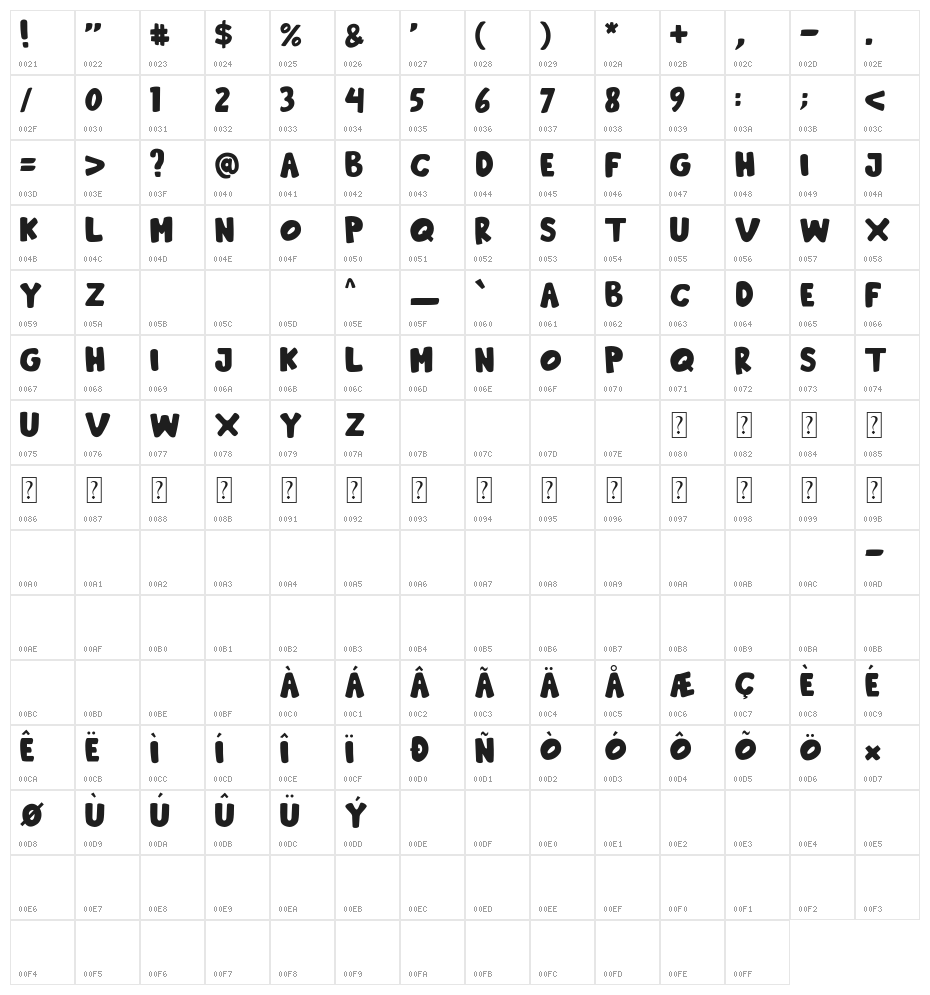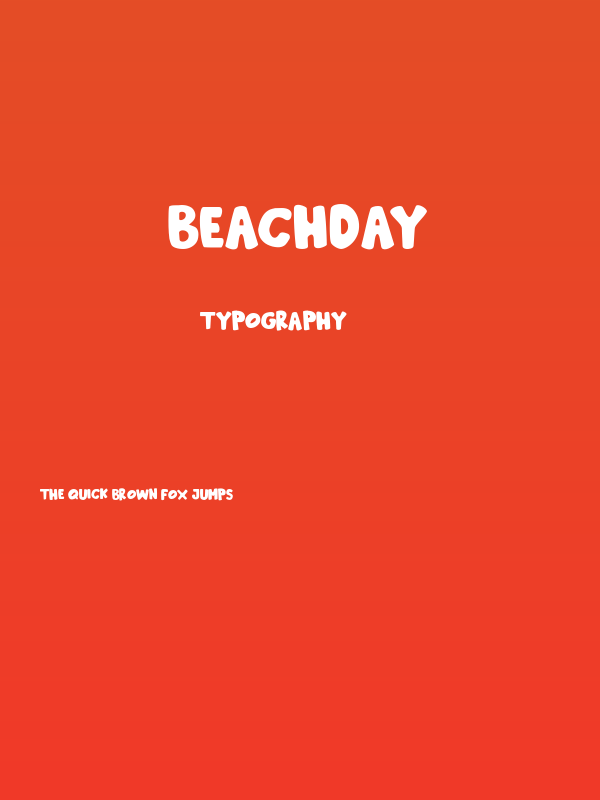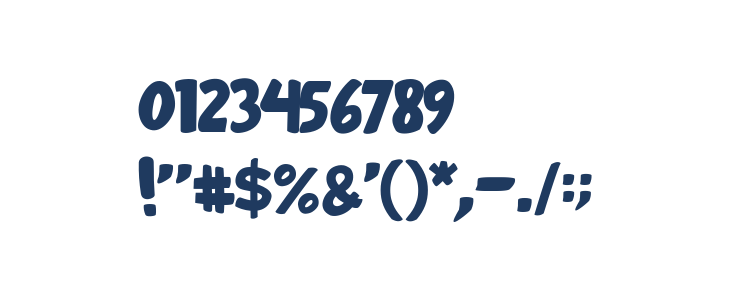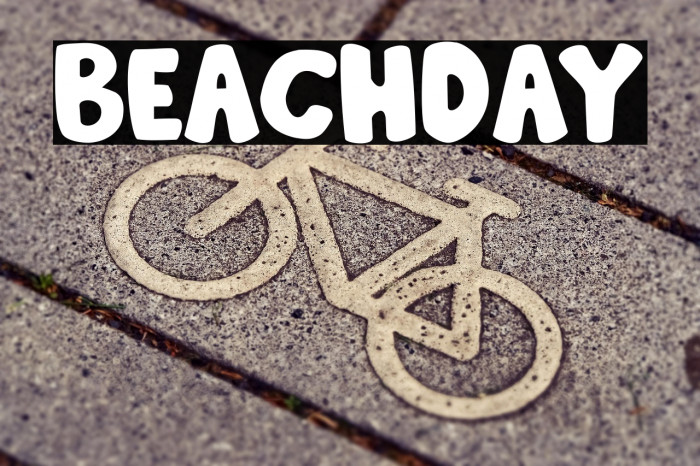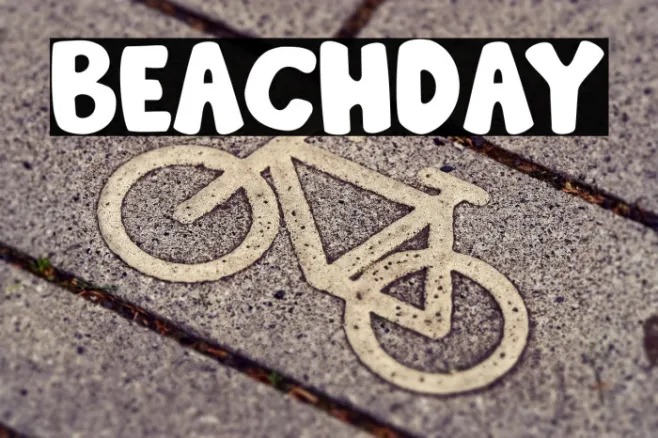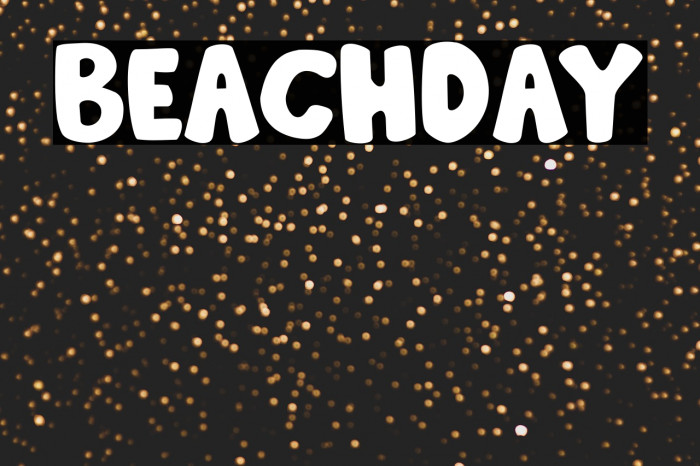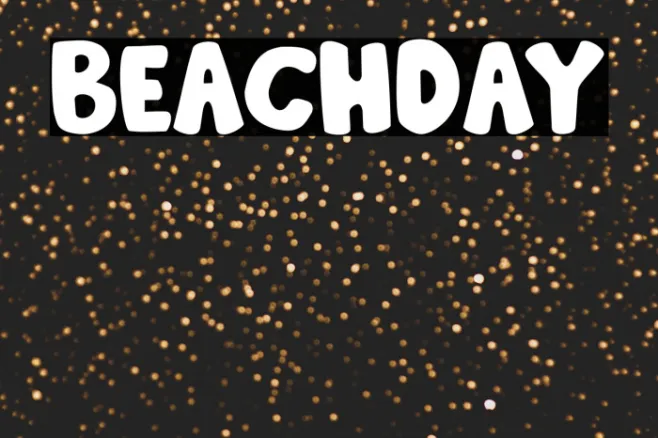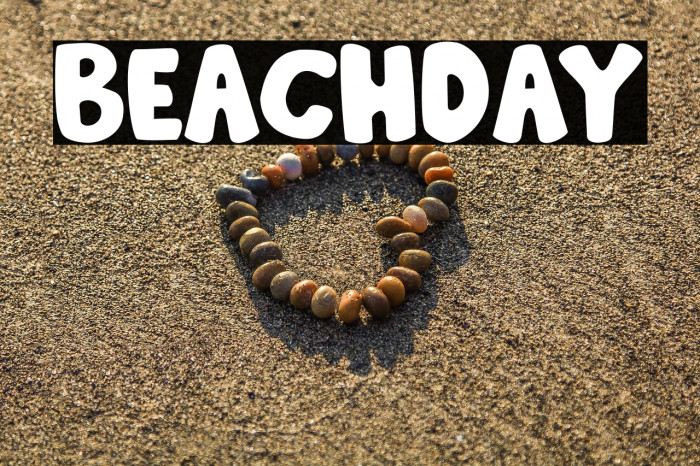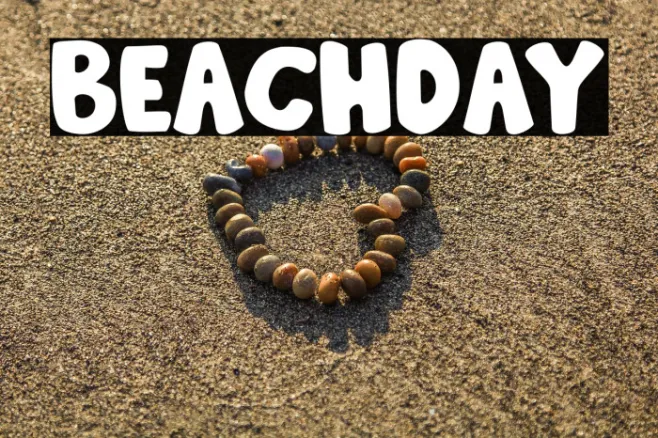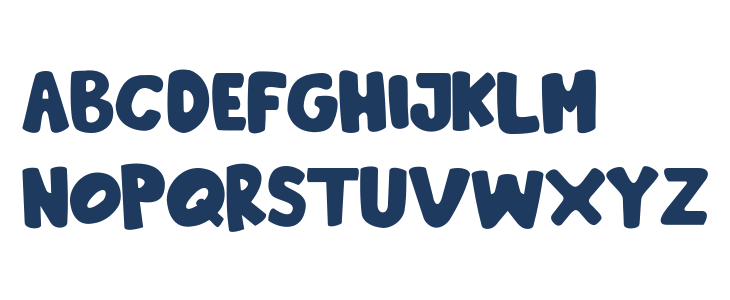
Beachday Font
Beachday Description
This playful and bold font features rounded, bubbly characters that evoke a sense of fun and whimsy. The letters are thick and slightly irregular, giving them a hand-drawn appearance that adds to their charm. The font's style is reminiscent of casual, carefree days, making it perfect for projects that aim to convey a lighthearted and friendly tone. The numbers and special characters maintain the same playful aesthetic, ensuring consistency across all text elements.
| Overall Style | Playful, Casual |
| Proposed Projects | Ideal for children's books, playful branding, party invitations, and casual social media graphics. |